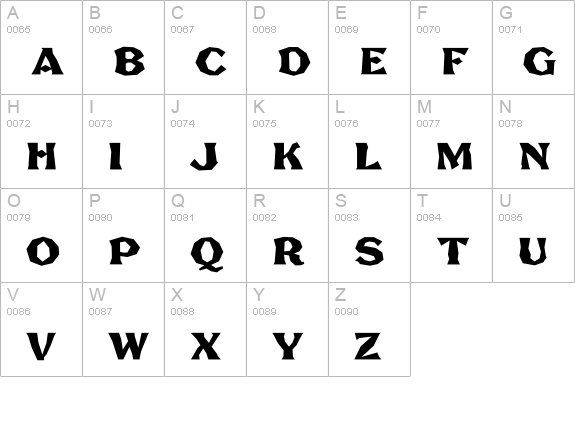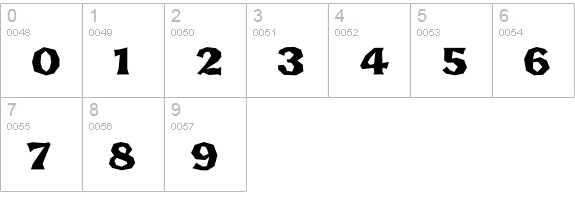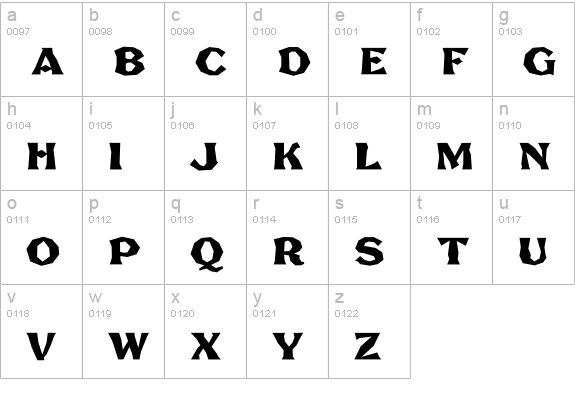
FHA Brokn Gothic BustdB NC Font Details
FHA Brokn Gothic BustdB NC font is an exceptional typeface that exudes a captivating and edgy personality. This unique font, with its broken and fragmented letterforms, effortlessly combines boldness with a touch of elegance. Its distinct and eye-catching design makes it perfect for a variety of creative projects, from logo designs to headlines and posters. With its free-spirited and rebellious vibe, FHA Brokn Gothic BustdB NC font is the ideal choice for those seeking to make a bold statement. Its unconventional and slightly distressed appearance adds a sense of raw authenticity to any design, instantly capturing attention and leaving a lasting impression. The versatility of this font is remarkable, as it effortlessly adapts to a wide range of design aesthetics. Whether you're aiming for a grunge-inspired look or a more refined and sophisticated style, FHA Brokn Gothic BustdB NC font can effortlessly elevate your design to new heights. One of the most appealing aspects of this font is that it is freely available to download at FontsMarket.com. This means that you can easily access and utilize this remarkable typeface in your creative projects without any hassle. Its availability for free is a testament to the generosity of its creators, who understand the importance of making quality design resources accessible to all. In conclusion, FHA Brokn Gothic BustdB NC font is a captivating and versatile typeface that effortlessly combines boldness with elegance. Its unique and slightly distressed design adds an edge to any project, making it perfect for those seeking to make a statement. And the fact that it is freely available to download at FontsMarket.com only adds to its appeal, ensuring that designers of all levels can access and utilize this remarkable font in their creative endeavors.